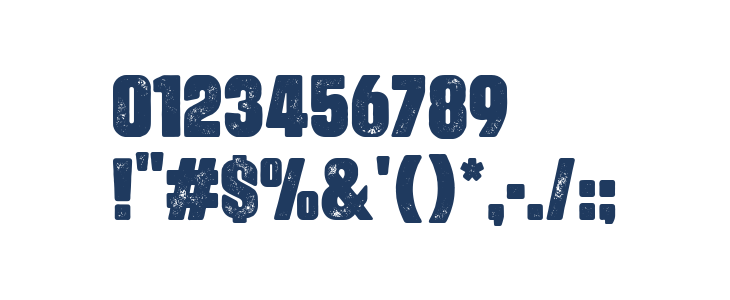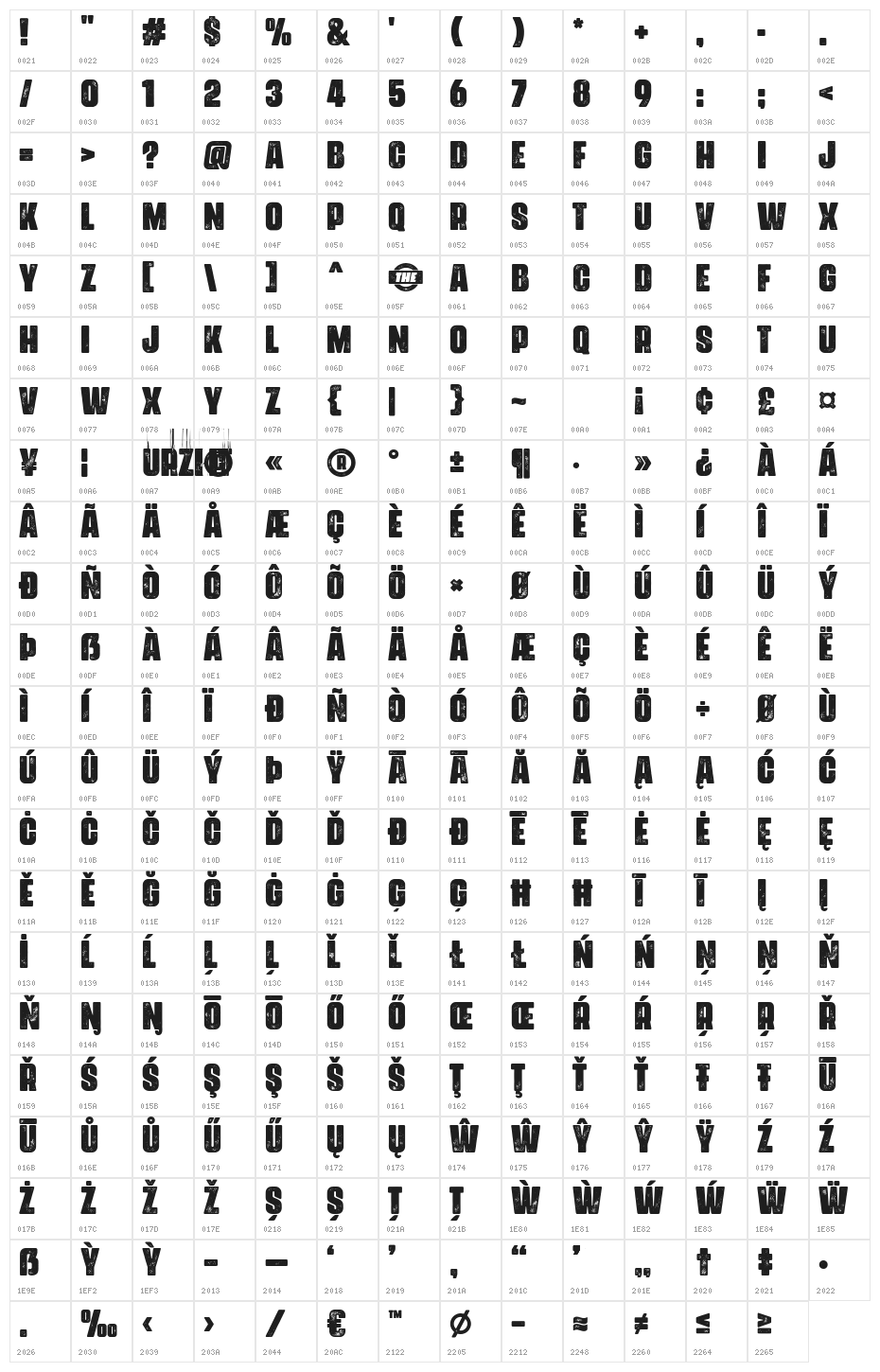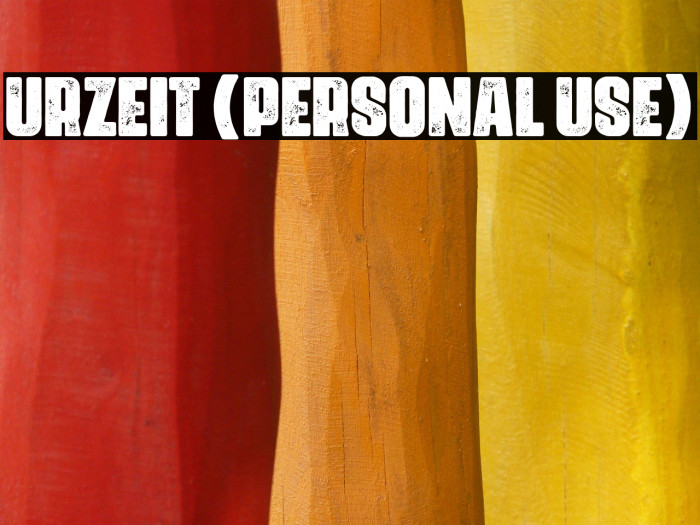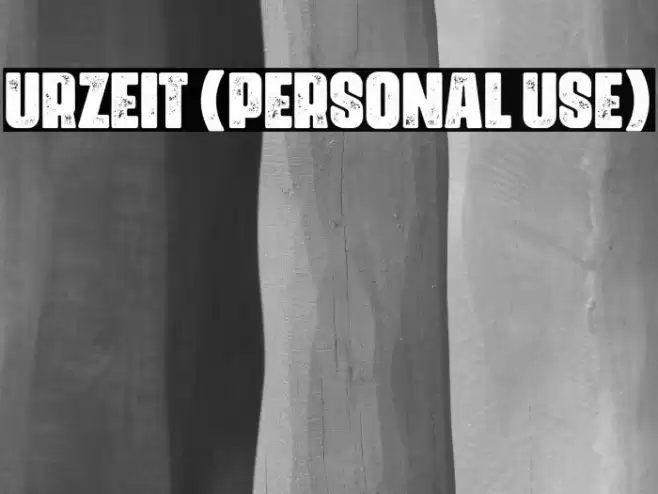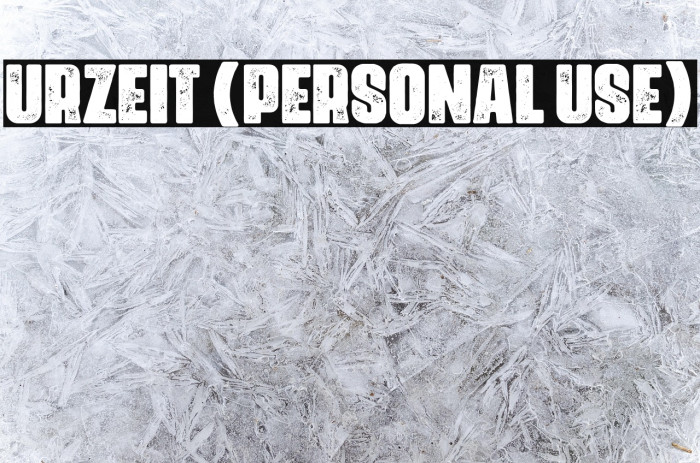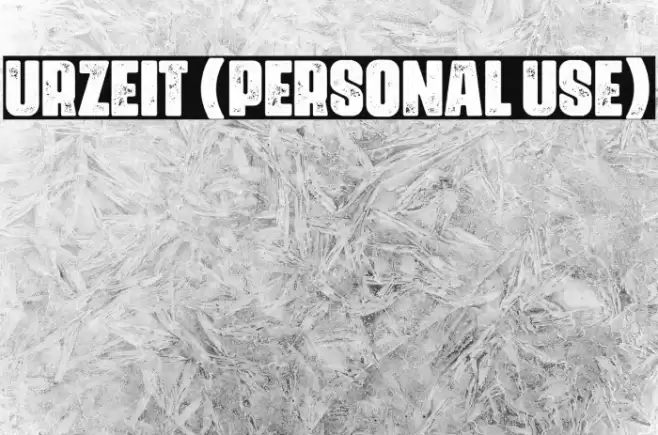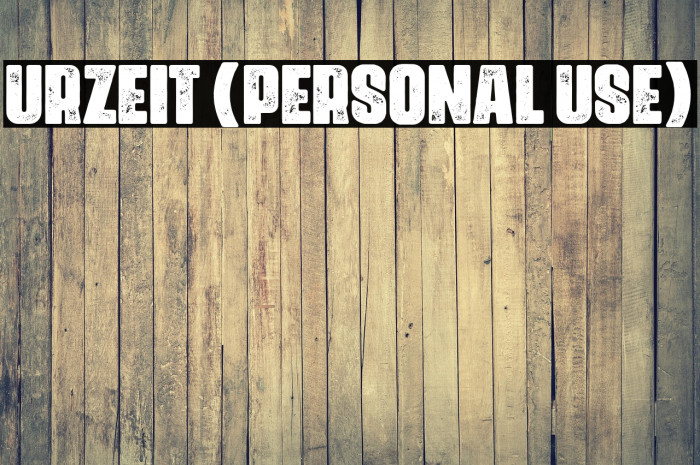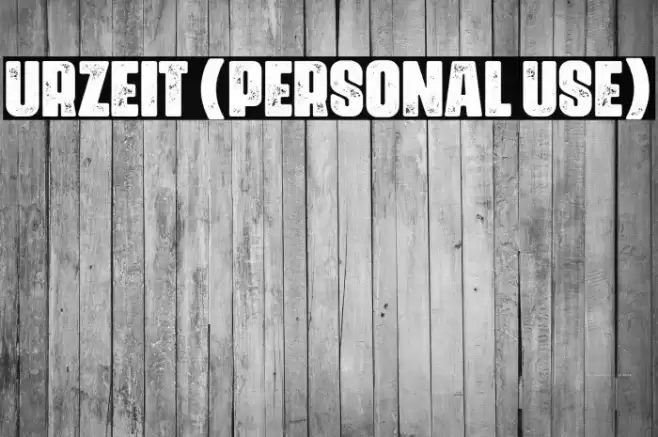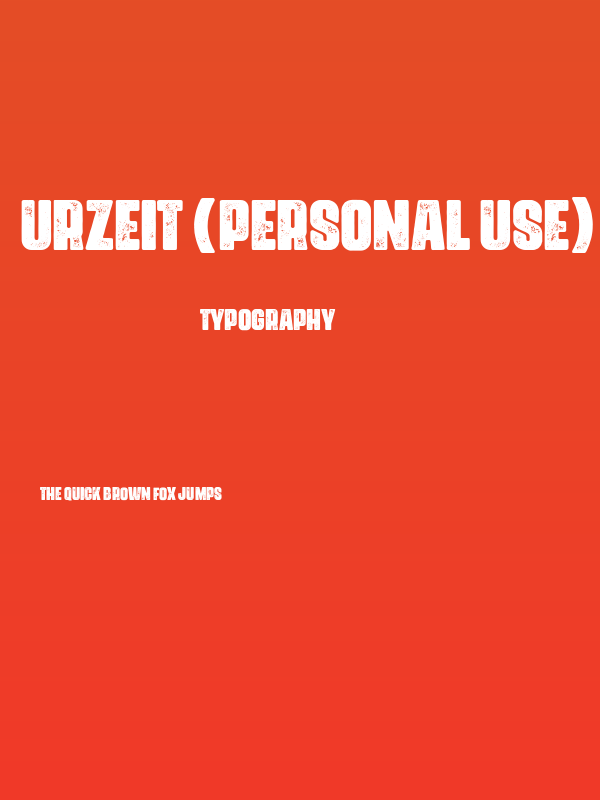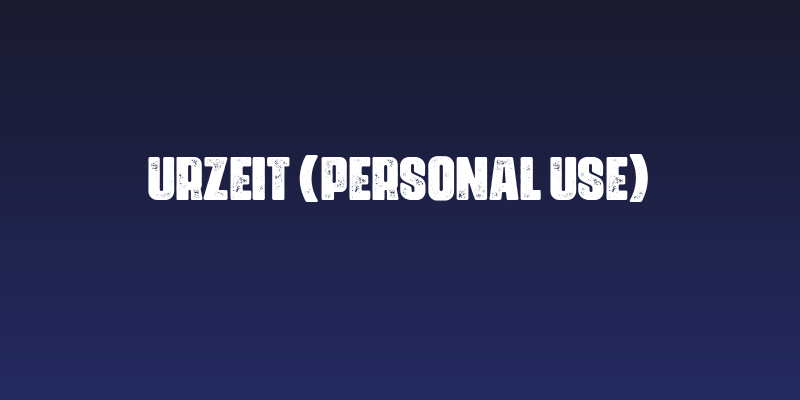
Urzeit (Personal Use) Font
Urzeit (Personal Use) Description
This bold, distressed font features a rugged, textured appearance that gives it a vintage, worn-out look. The characters are thick and blocky, with a consistent width that makes them highly legible even at smaller sizes. The distressed texture adds a unique, handcrafted feel, making it ideal for designs that require a rustic or industrial aesthetic. The uppercase and lowercase letters maintain a uniform style, while the numbers and special characters complement the overall design. This font is perfect for projects that aim to convey strength, authenticity, and a touch of nostalgia.
| Proposed Projects | Ideal for posters, logos, branding, packaging, and apparel designs that require a vintage or industrial feel. |